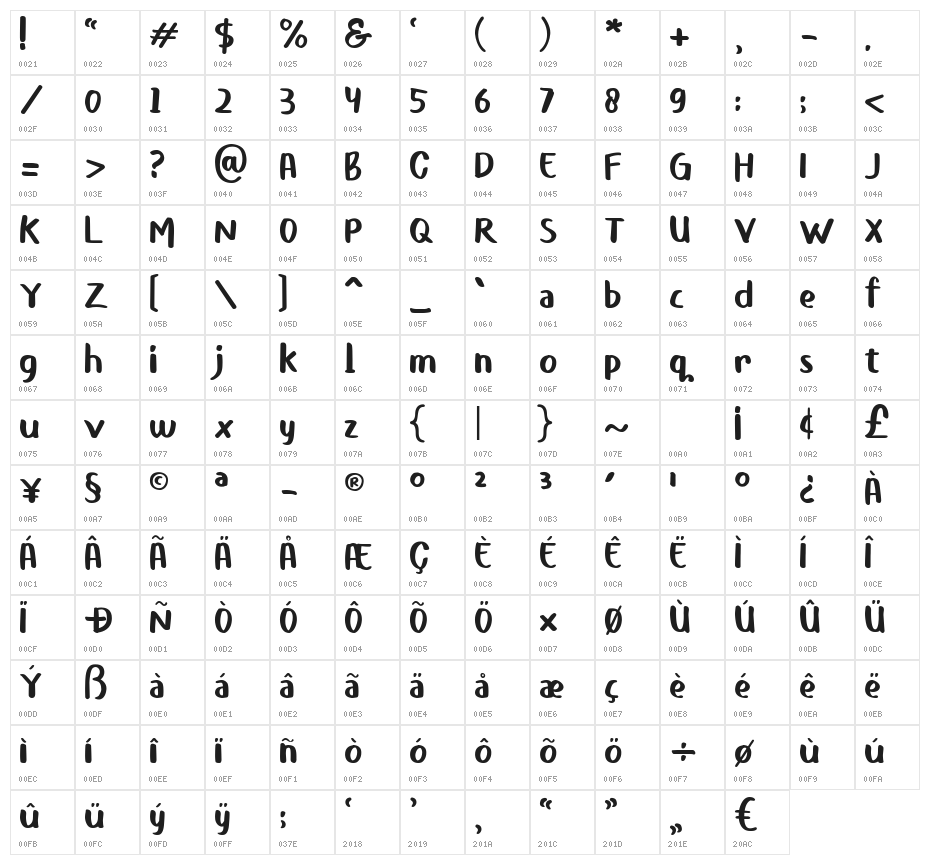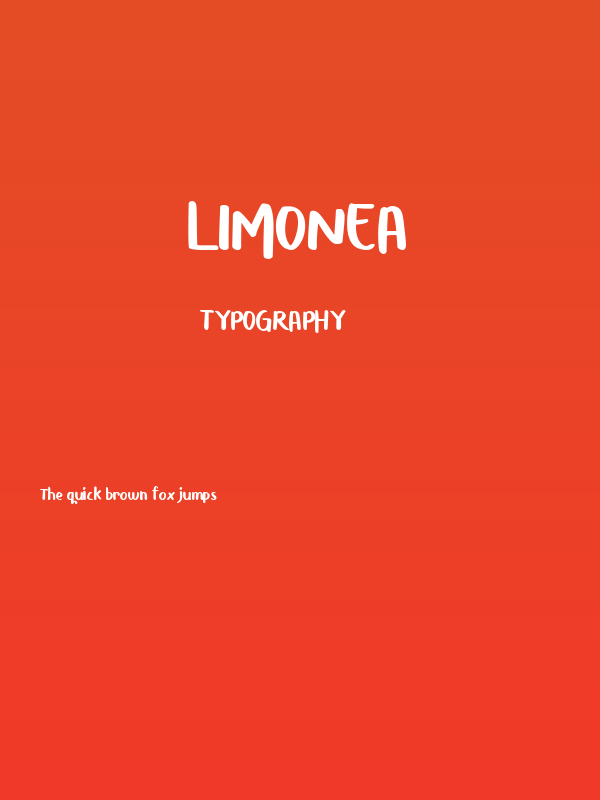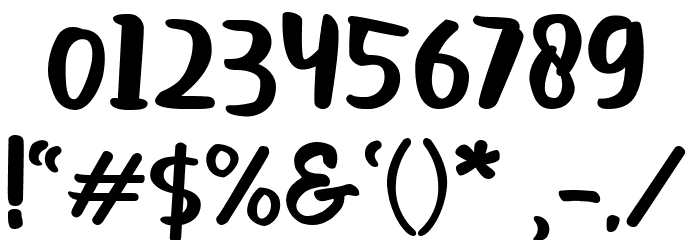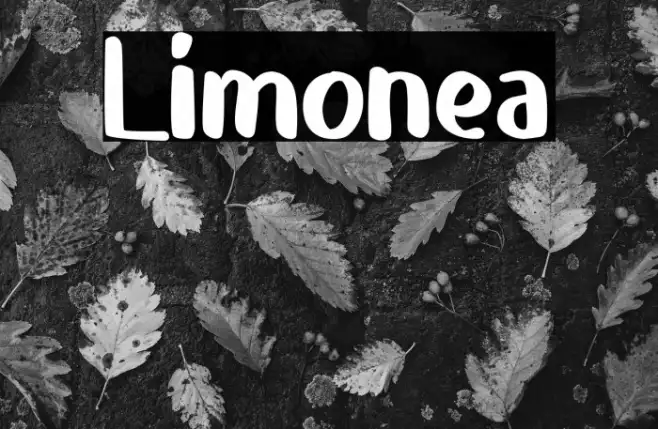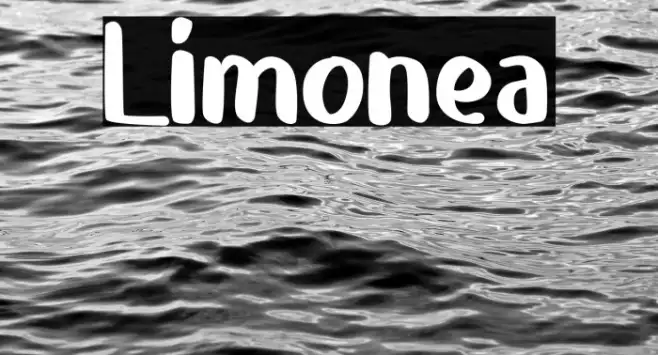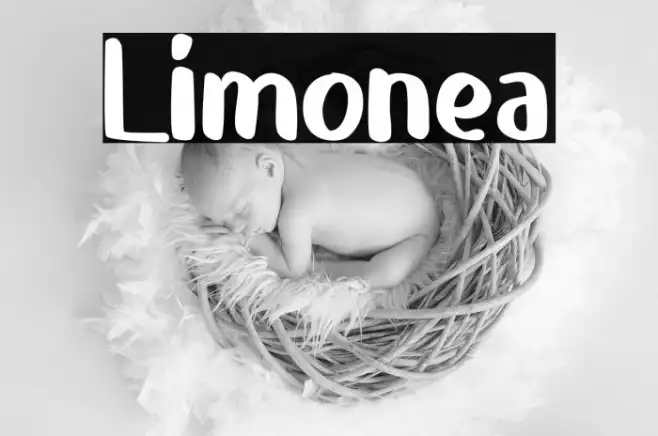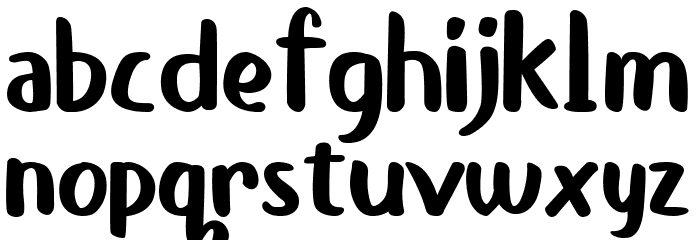
Limonea Font
Limonea Description
This playful and bold font features a handwritten style with a smooth, rounded appearance. The letters are slightly irregular, giving it a casual and friendly feel. The uppercase characters are bold and prominent, while the lowercase letters maintain a consistent flow with rounded edges. Numbers are equally bold, ensuring visibility and readability. Special characters are crafted with the same playful style, making them suitable for creative projects. The overall design is approachable and versatile, perfect for adding a personal touch to any design.